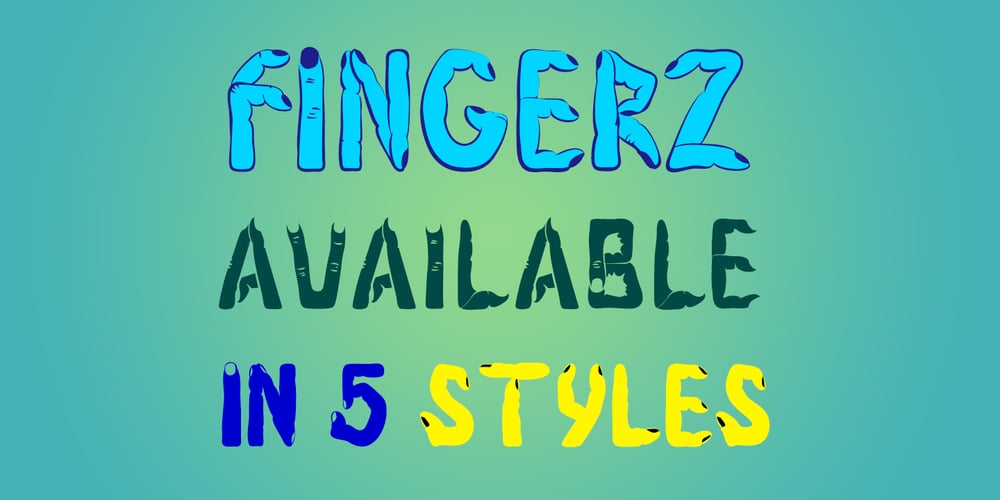
Fingerz Font Family was designed by Sergejs Kolecenko and published by Sergejs Kolecenko. Fingerz contains 5 styles and family package options. This typeface was started as assignment in Academy, then the idea grew to develop into a font family with different styles for interesting combinations. Inspiration came from my own hands — it is amazing how fingers can form letters, so each letter has it’s own personality. Fingerz font family is perfect to use in posters, booklets and other typographic elements also in all other media that needs to catch attention. This font comes in 5 different styles to combine in various color combinations.